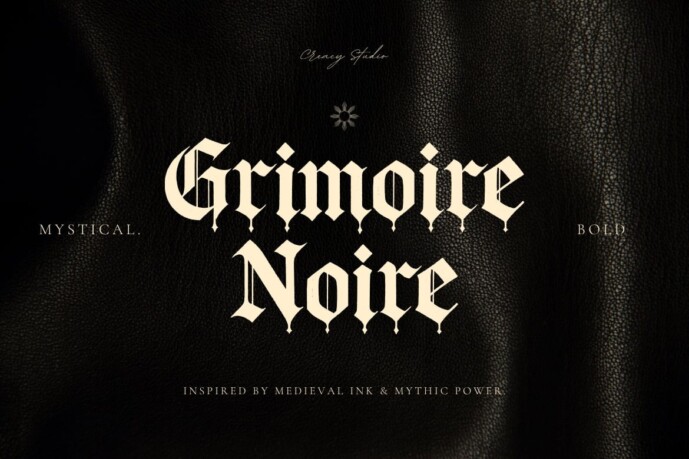
Grimoire Noir Font
Grimoire Noir is a bold, decorative blackletter typeface inspired by medieval calligraphy, cathedral engravings, and ancient grimoires. Crafted with sharp angular strokes, dramatic swashes, and ornamental terminals, this font captures the spirit of gothic majesty and mystical storytelling.
Perfect for fantasy book covers, RPG game logos, historical posters, music merch, or any design that seeks a powerful, timeless presence.